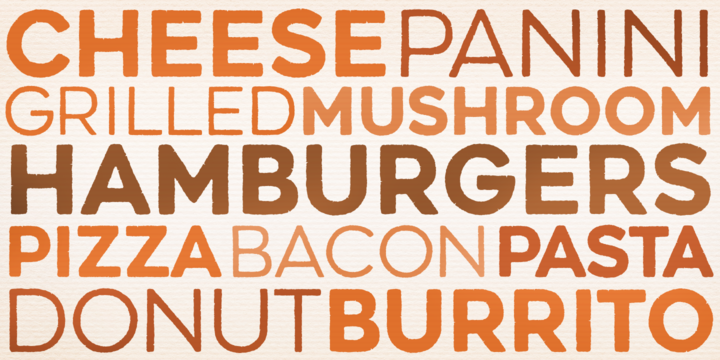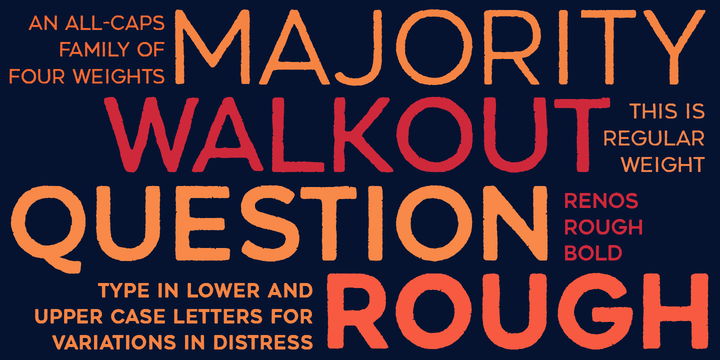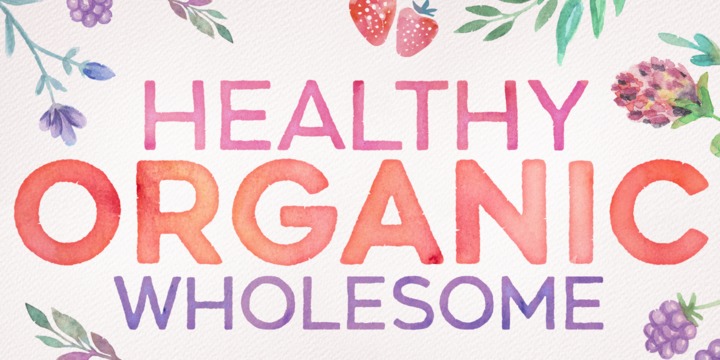
Reno Rough is a distressed display typeface family with an eroded rustic look, yet a distinct geometric spirit.
It is an all caps font family with variations in the roughness in upper and corresponding lower case glyphs to eliminate identical distress pattern in repeated adjacent letters.
Reno Rough works well for smaller as well as larger point sizes, but is especially suited for headlines, titles, headers, posters, packaging and branding.